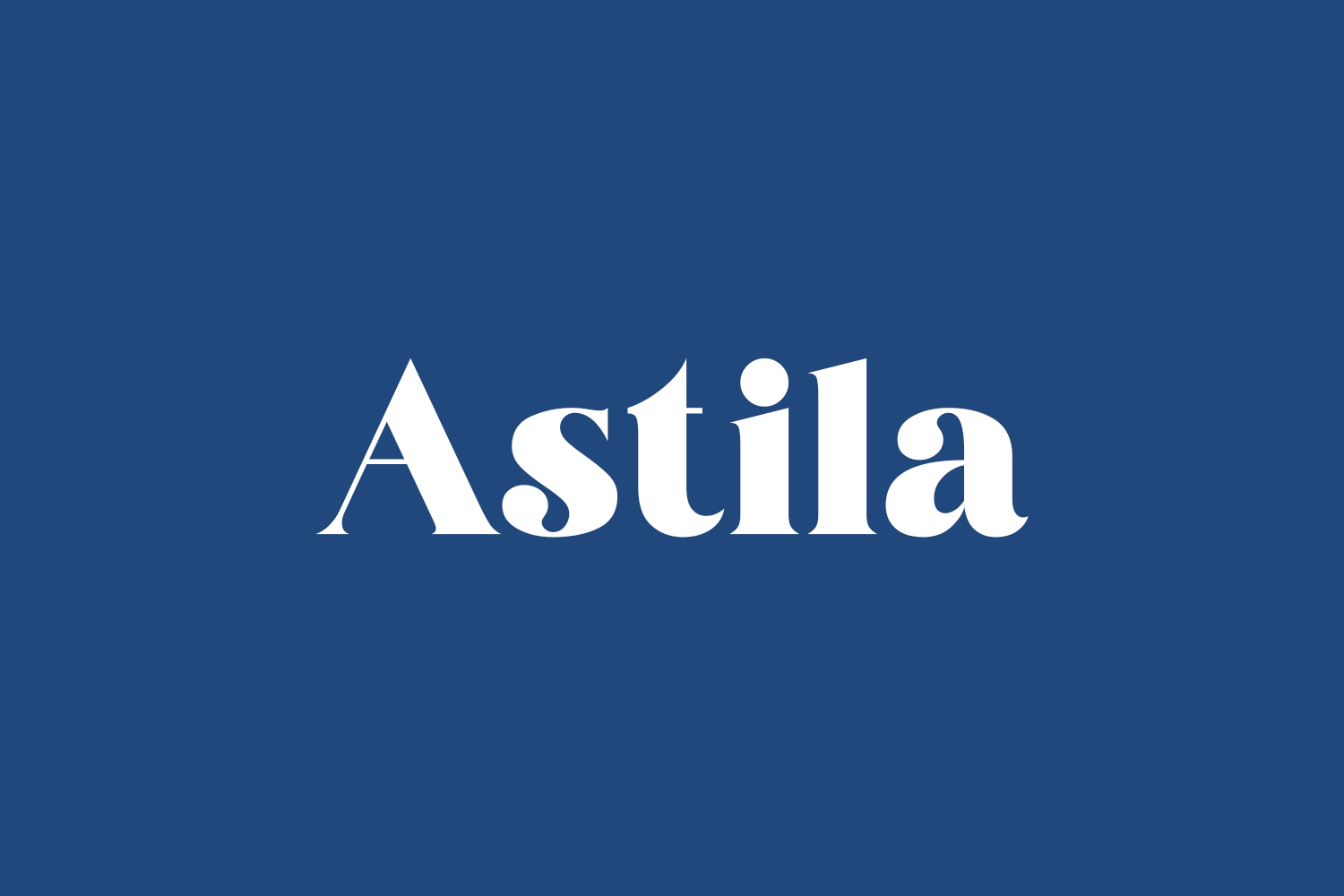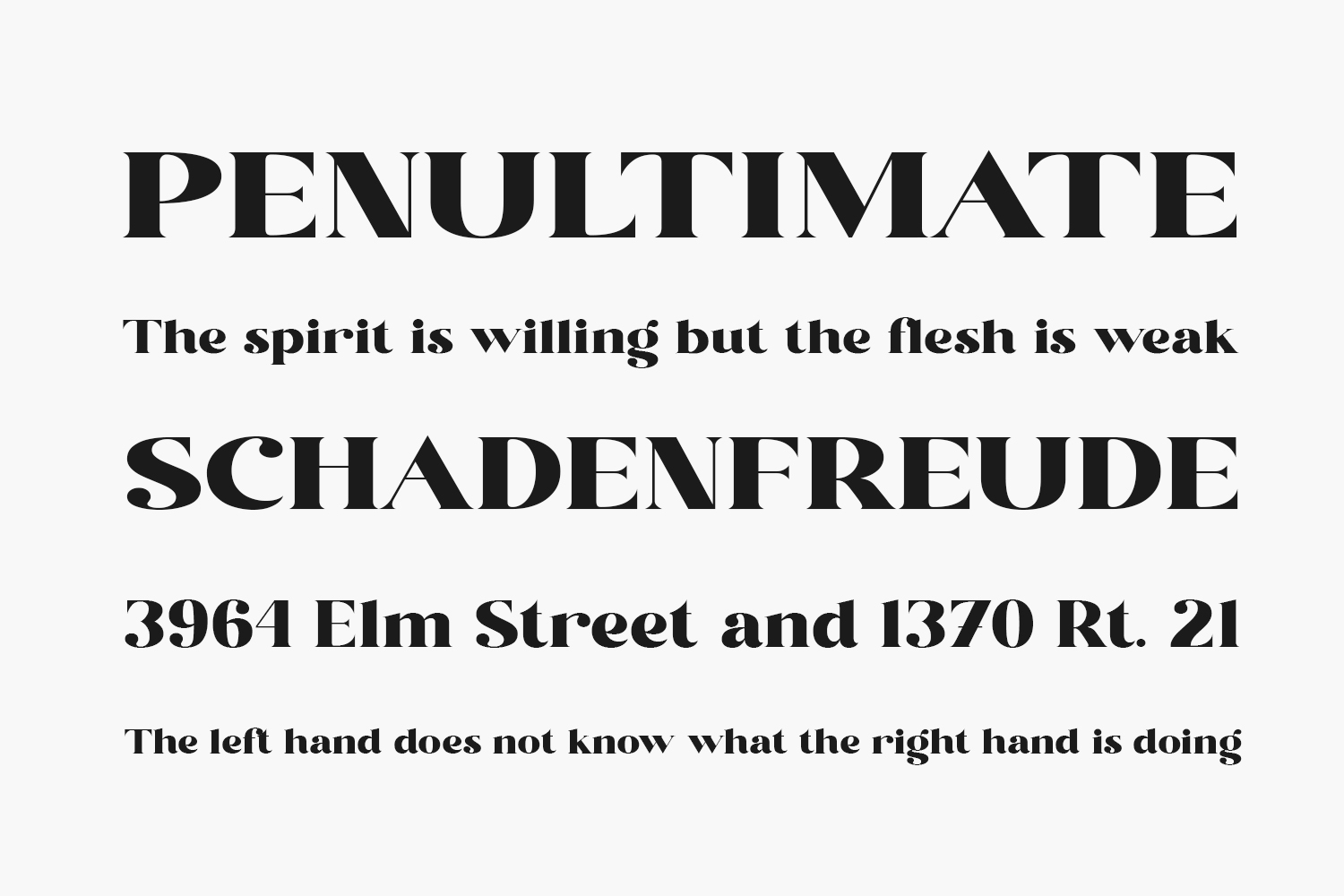
Astila Free Font is a modern and distinct serif font. Bold and imposing, this font will make each of your design ideas come alive. Fall in love with its incredibly versatile style and use it to create spectacular designs. Astila Free Font was designed by Eka Hermawan and is free for personal use only. Please purchase the full version for commercial use.